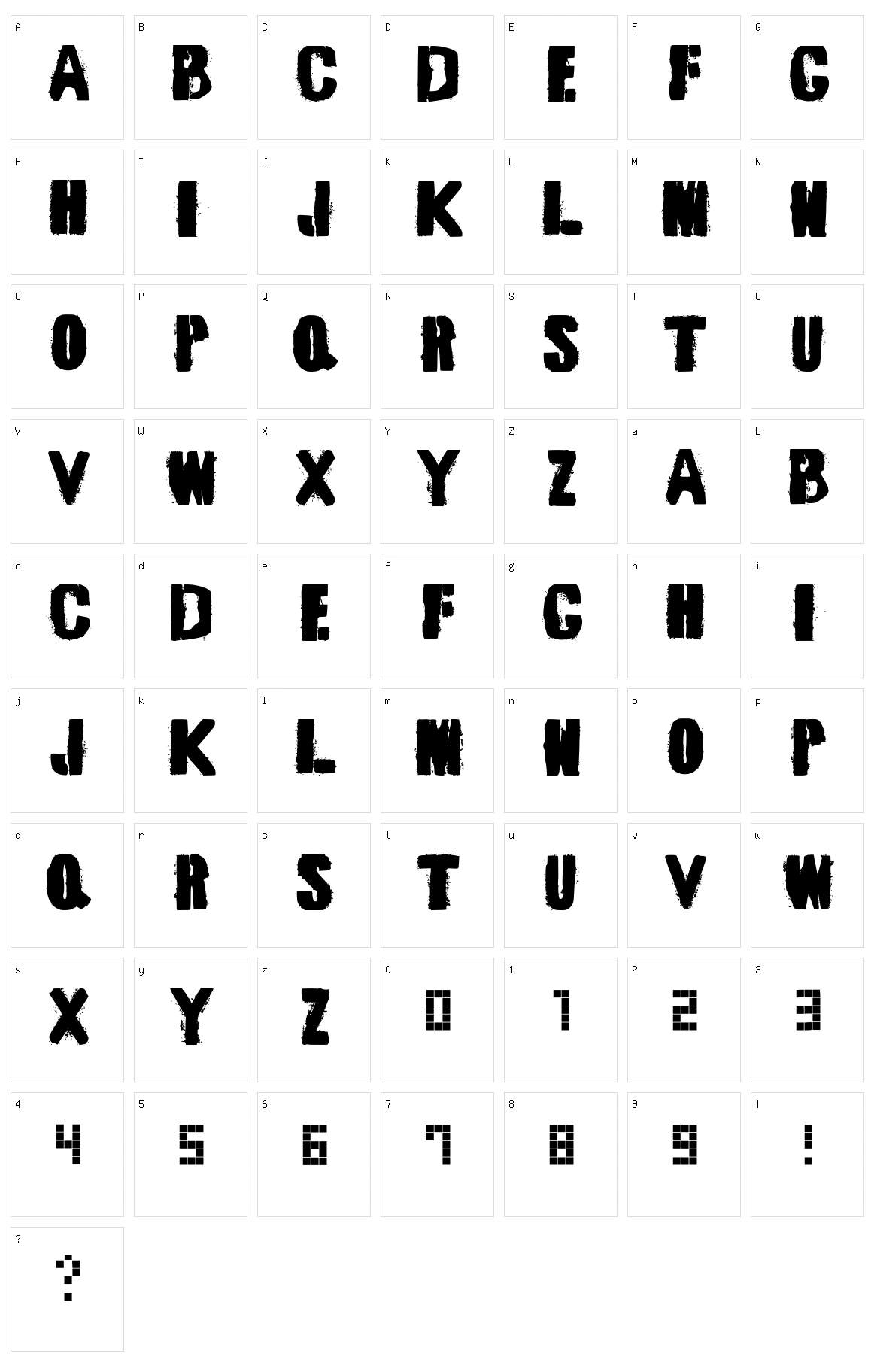
The free font No More Hero is carefully designed by Walgo Balgo, showcasing a thoughtful balance of creativity and usability and falls under the Eroded font style. When you download the ZIP file, it contains only 25.63 KB of font files, making it lightweight and quick to download. Please review the license details below to understand permitted usage and distribution rights. If license information is not available, we recommend using this font for personal projects only or contacting the author directly for commercial usage permissions.